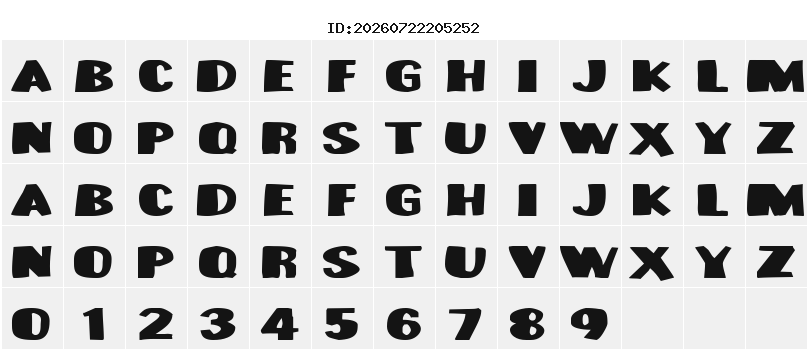
Munster Bash Preview
About Munster Bash.ttf
Munster Bash.ttf is a modern, elegant sans-serif font designed for ultimate readability and visual harmony. Perfect for branding, headlines, web design, and print materials.